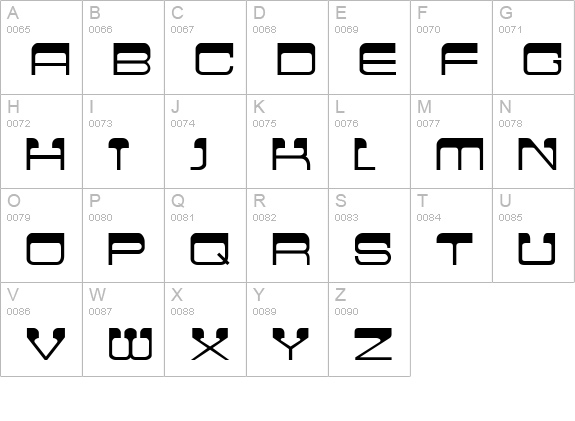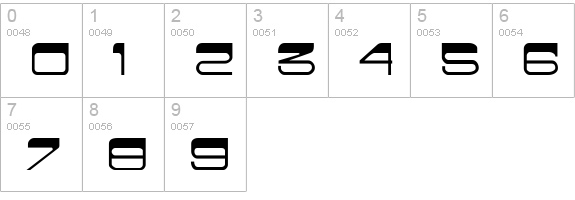
Cinema MF font is a bold and eye-catching typeface inspired by classic cinema marquees. Its sharp edges and vintage style make it perfect for adding a touch of retro charm to your designs. This versatile font is ideal for movie posters, signage, branding, and more. The best part? Cinema MF font is completely free to download at FontsMarket.com. Now you can bring that old Hollywood glamour to your projects without breaking the bank. Don't miss out on this opportunity to enhance your design with a touch of cinematic flair. Download Cinema MF font today and let your creativity shine!